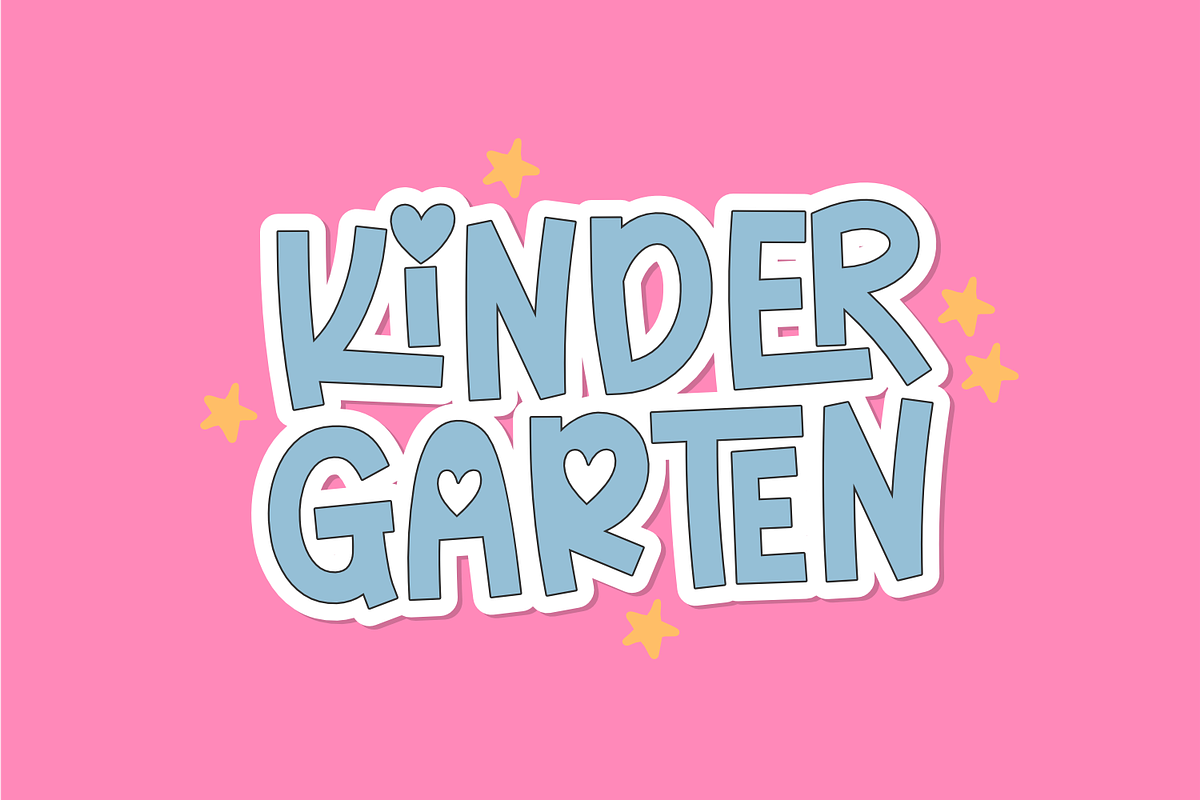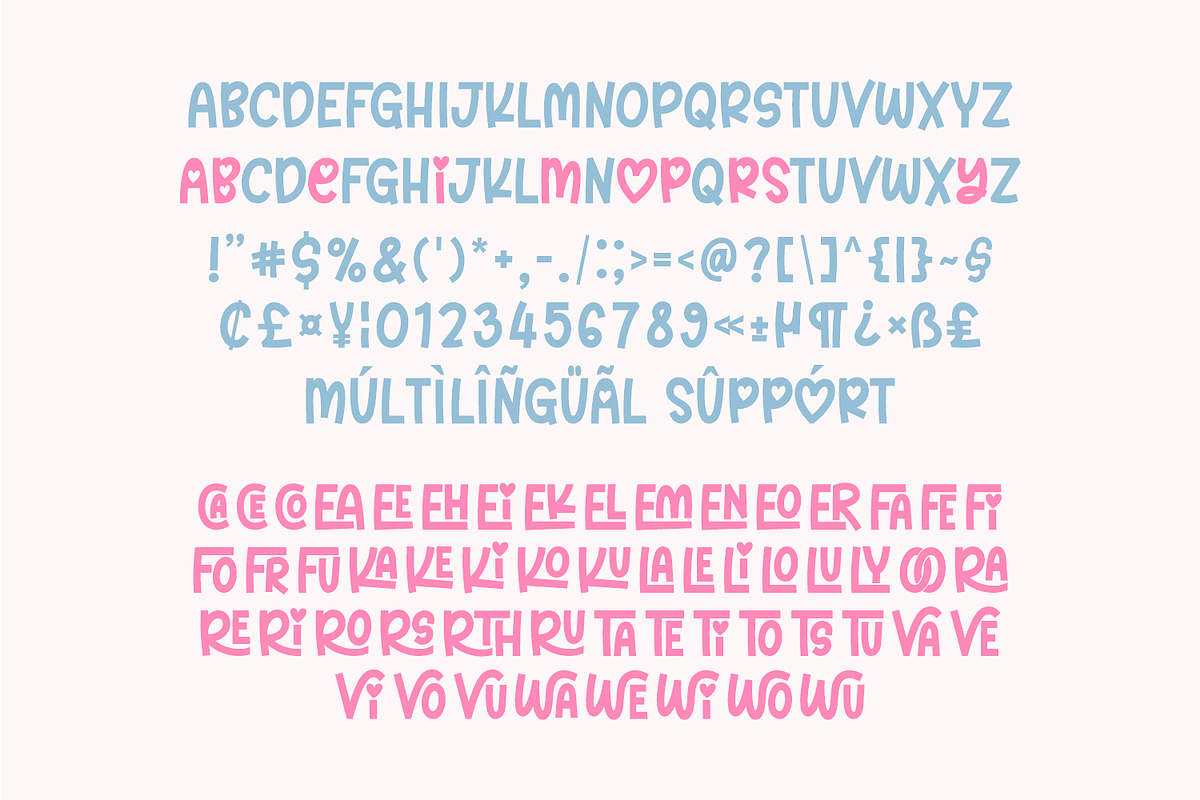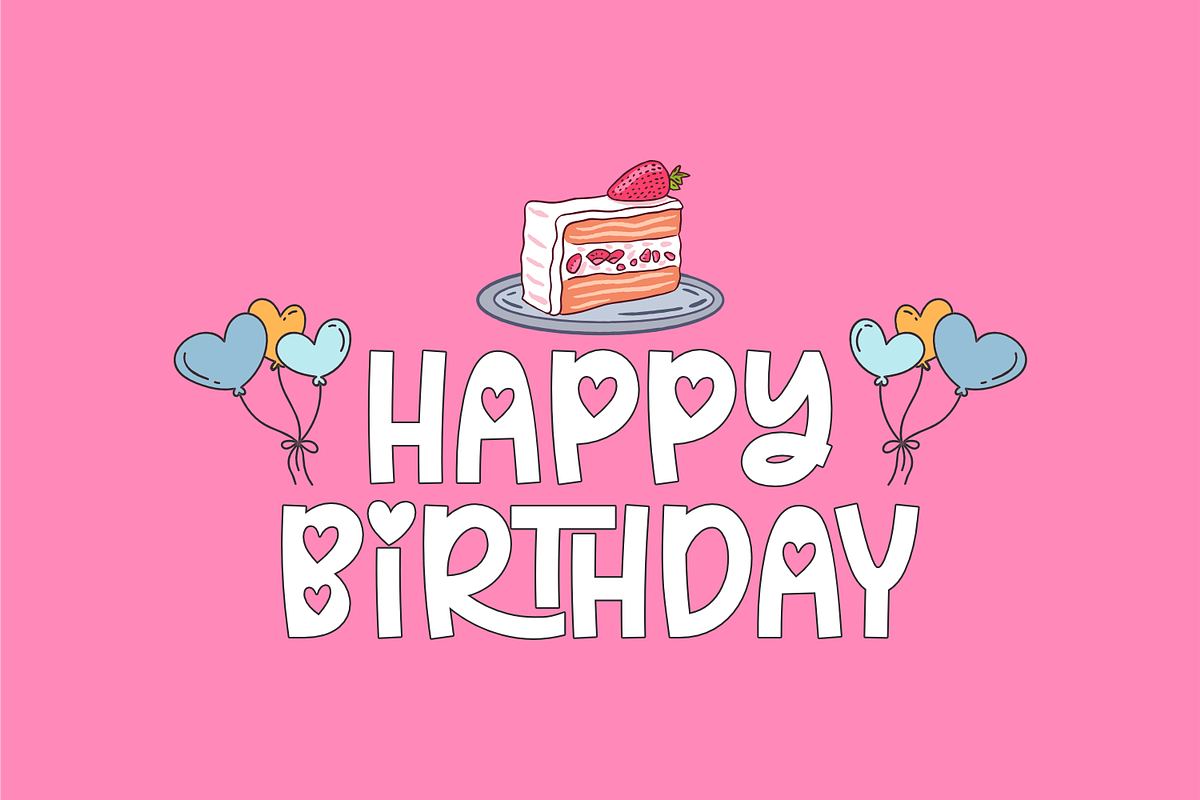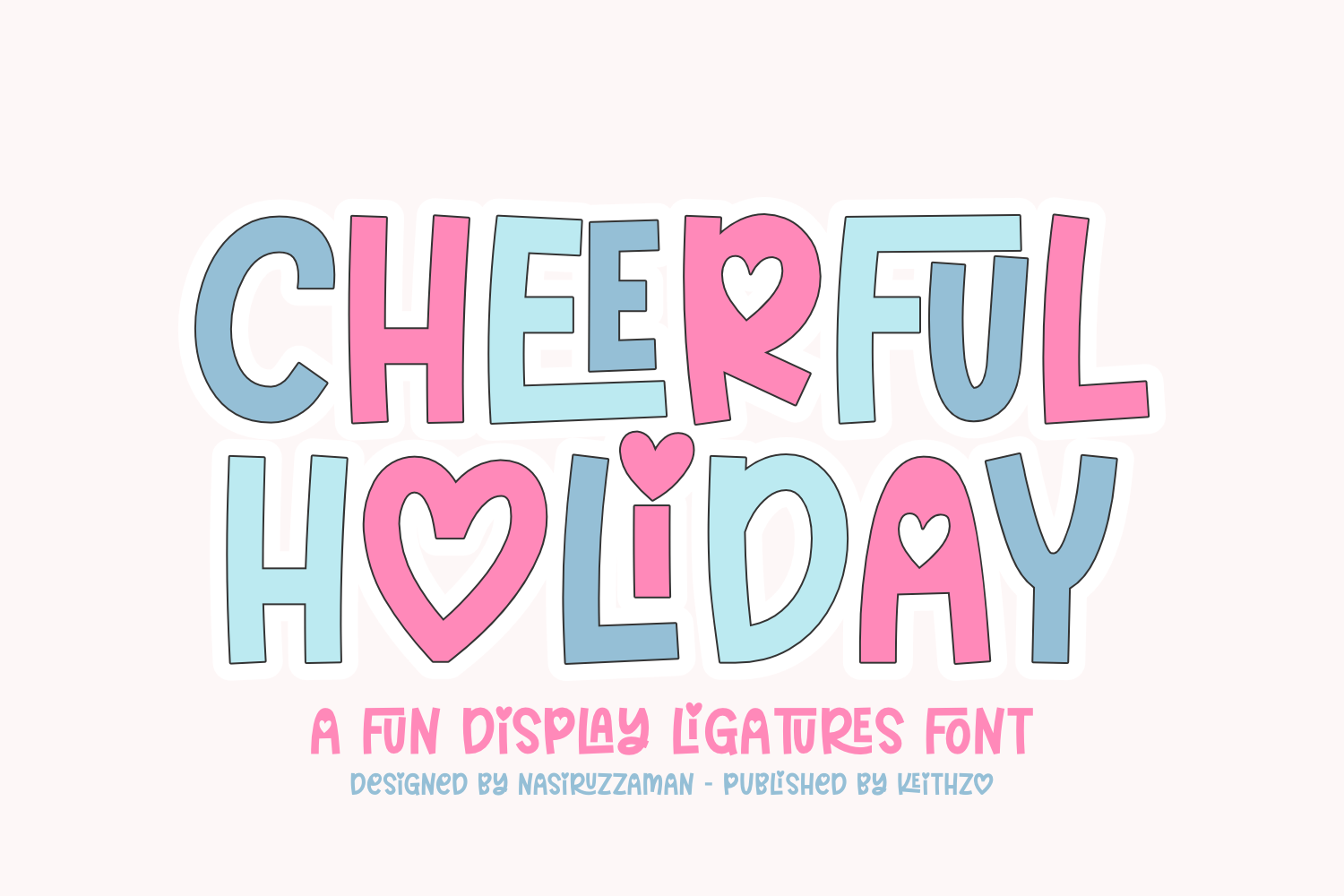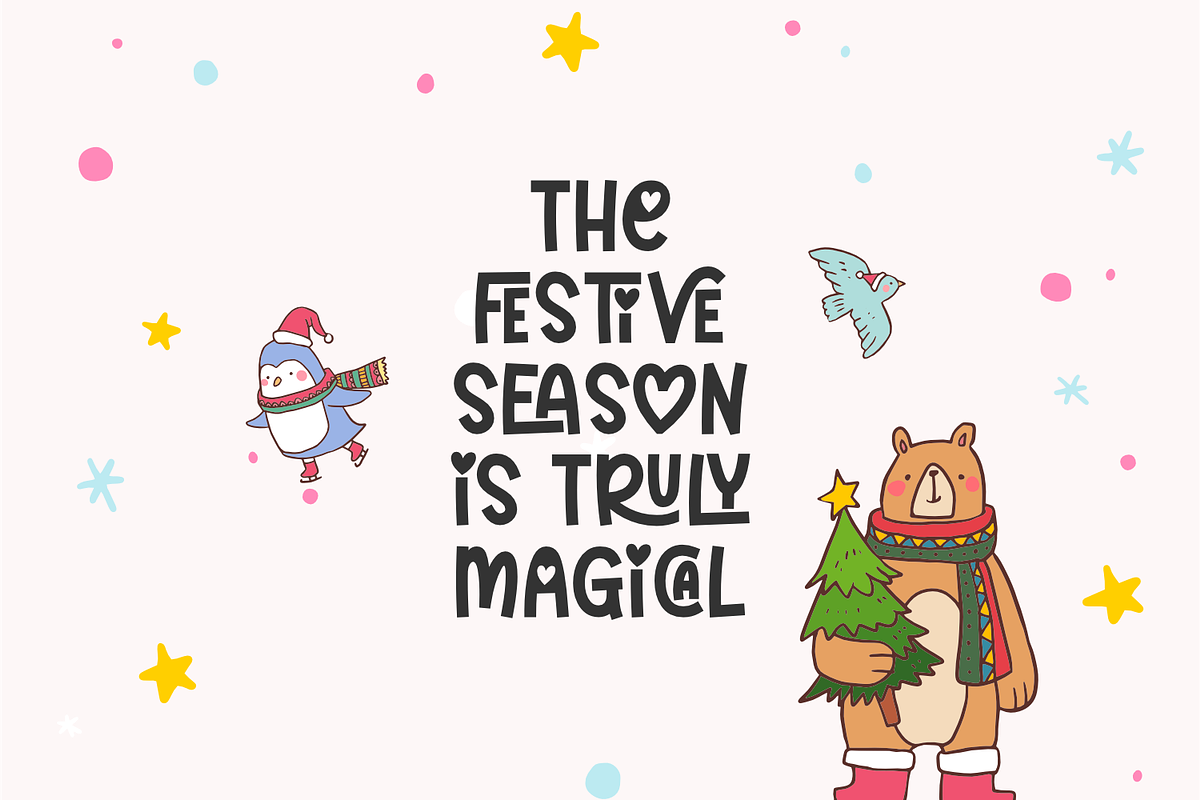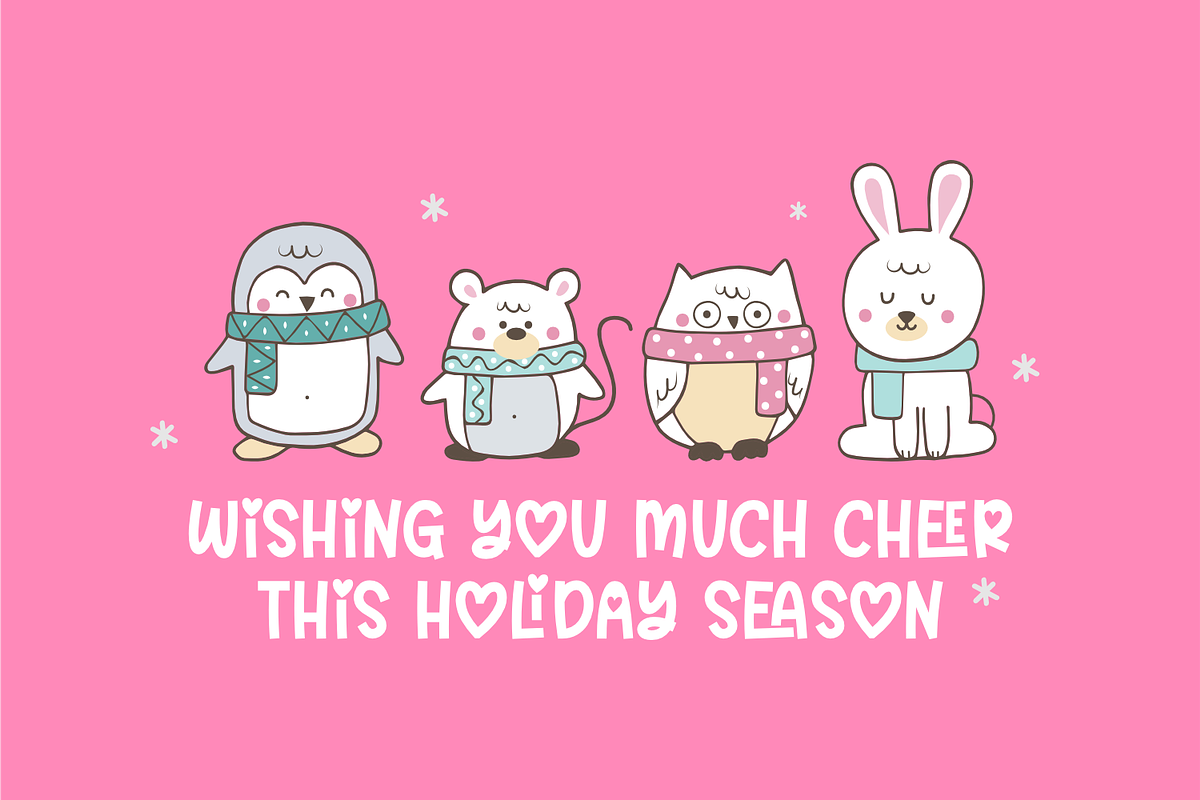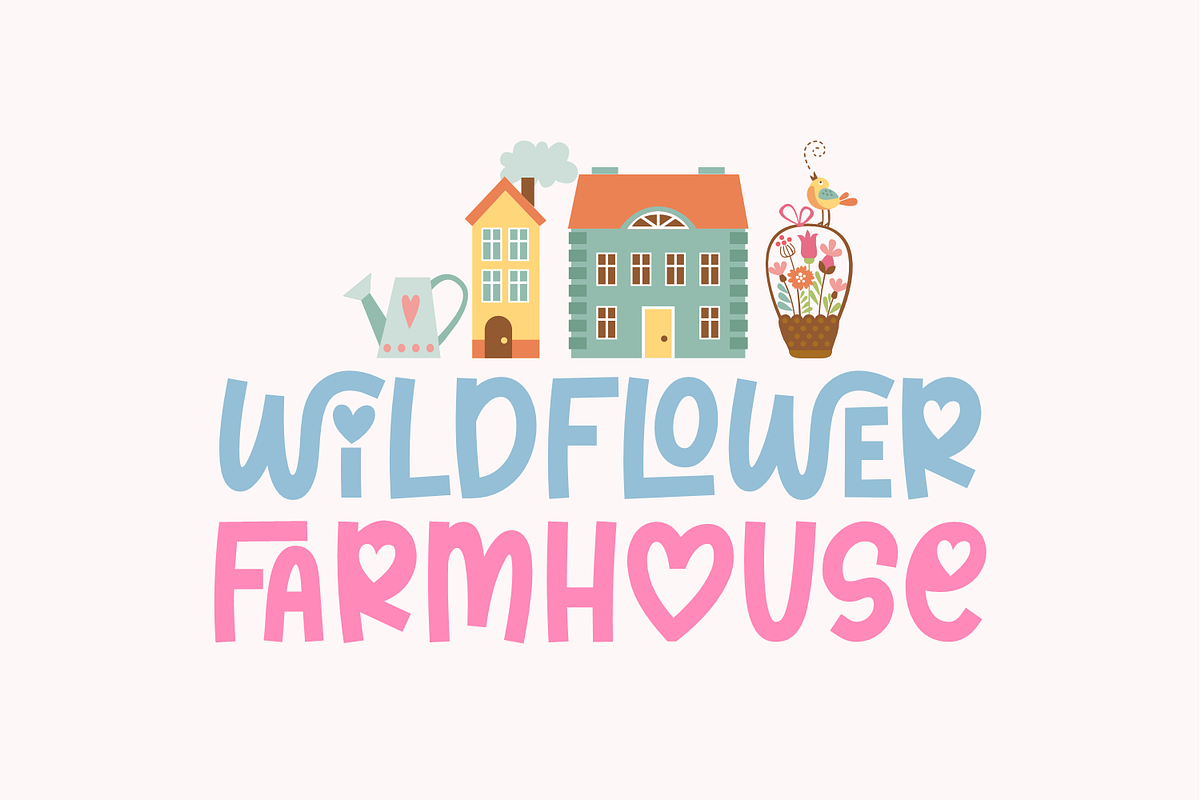
Cheerful Holiday - Christmas Font
Introducing “Cheerful Holiday”, the pinnacle of festive and joyous display typefaces! Wonderfully encapsulating joy, affection, and an irrepressibly playful aura, this all-caps font is designed to enchant. Its bold, curved strokes and irresistible color palette make for a truly eye-catching display.
Delving into the spirit of delightful fun, “Cheerful Holiday” makes an excellent choice for projects requiring an extra dash of charm. It breathes a sense of frolicsome joy into children-related, holiday-themed, or celebratory endeavors.
Brands with a sweet and friendly persona aiming to leave an unforgettable impression; look no further. Cloth your T-shirt designs, vinyl crafts, stickers, and sublimation products in this memorable typeface for an irresistible appeal.
Lending a lively character to posters and greeting cards, it’s an ideal choice for birthday wishes, festive greetings, or sentimental Valentine’s notes. Furthermore, this font can add a dash of magic to children’s book covers, compelling young readers to dive into the world of imagination.
“Cheerful Holiday” lends a charming ambiance perfect for any festive holiday, birthday celebration, Valentine’s tokens, rustic farmhouse themes, or Kindergarten learning materials. Become synonymous with joy, positivity, and fun with this visually delightful and utterly captivating typeface!